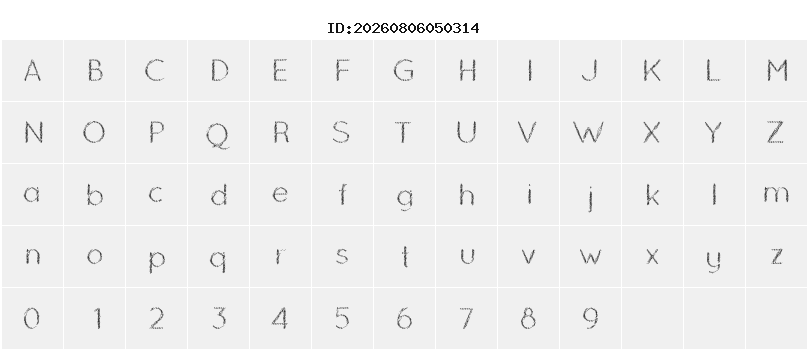
Ozarks Normal Preview
• Font Name: Ozarks Normal
• Full Font Name: Ozarks Normal
• PostScript Name: Ozarks-Normal
• Designer: Louis Dorman
About Ozarks Normal.otf
Ozarks Normal.otf is a modern, elegant sans-serif font designed for ultimate readability and visual harmony. Perfect for branding, headlines, web design, and print materials.